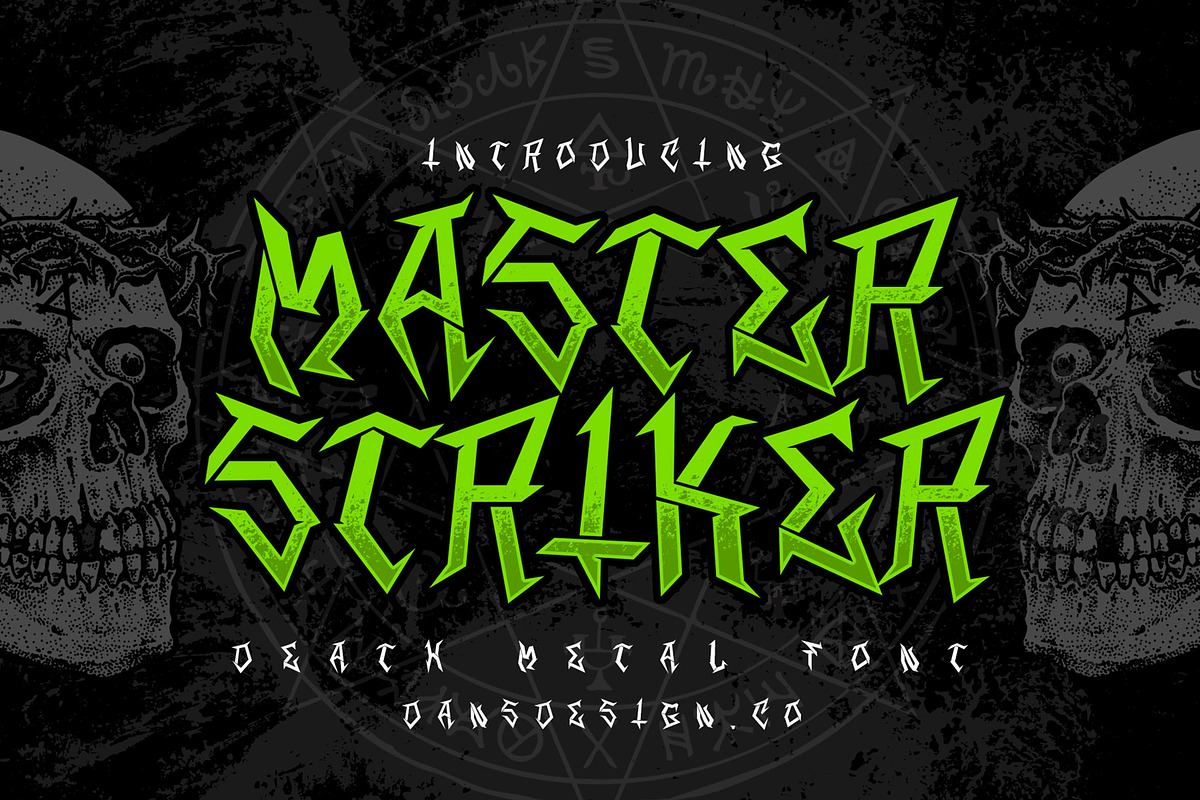
MASTER STRICKER – Metal Horror Music Font Free Download
MASTER STRICKER – Metal Horror Music Font Free Download is a brutal and intense display typeface built for high-impact visuals. With razor-sharp edges, chaotic energy, and horror-inspired flair, this font is perfect for metal band logos, album covers, gig posters, horror movie titles, and dark-themed merchandise.
Its aggressive letterforms scream with attitude—channeling raw sound and sinister style in every curve. Whether you're designing for extreme music, underground art, or Halloween events, MASTER STRICKER makes sure your typography hits like a thunderclap.